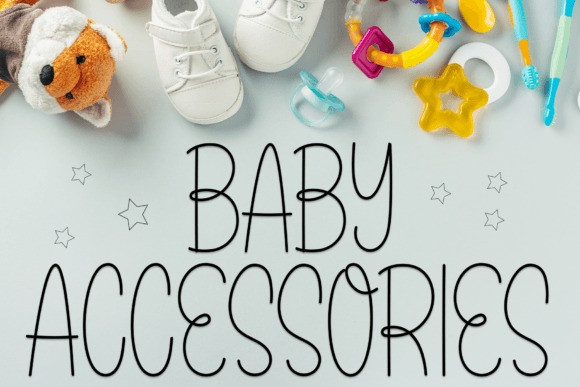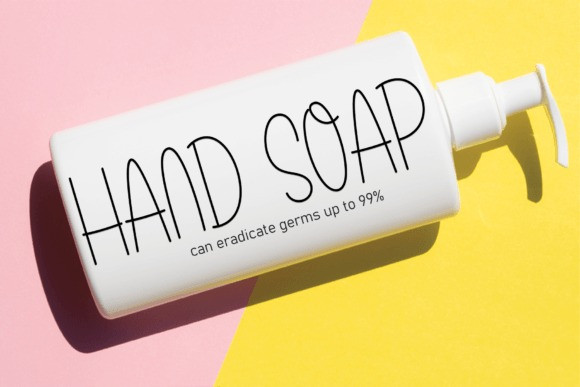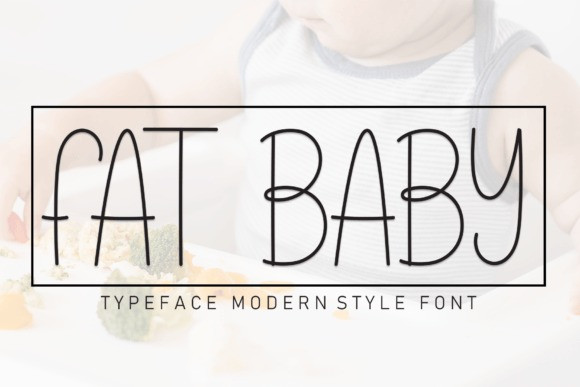
Fat Baby Handwritten Font
Fat Baby Handwritten Font is a sweet and friendly handwritten font. Fresh and casual, this font is ideal for writing wedding invitations, cards, or any other design that might need a lovely touch.